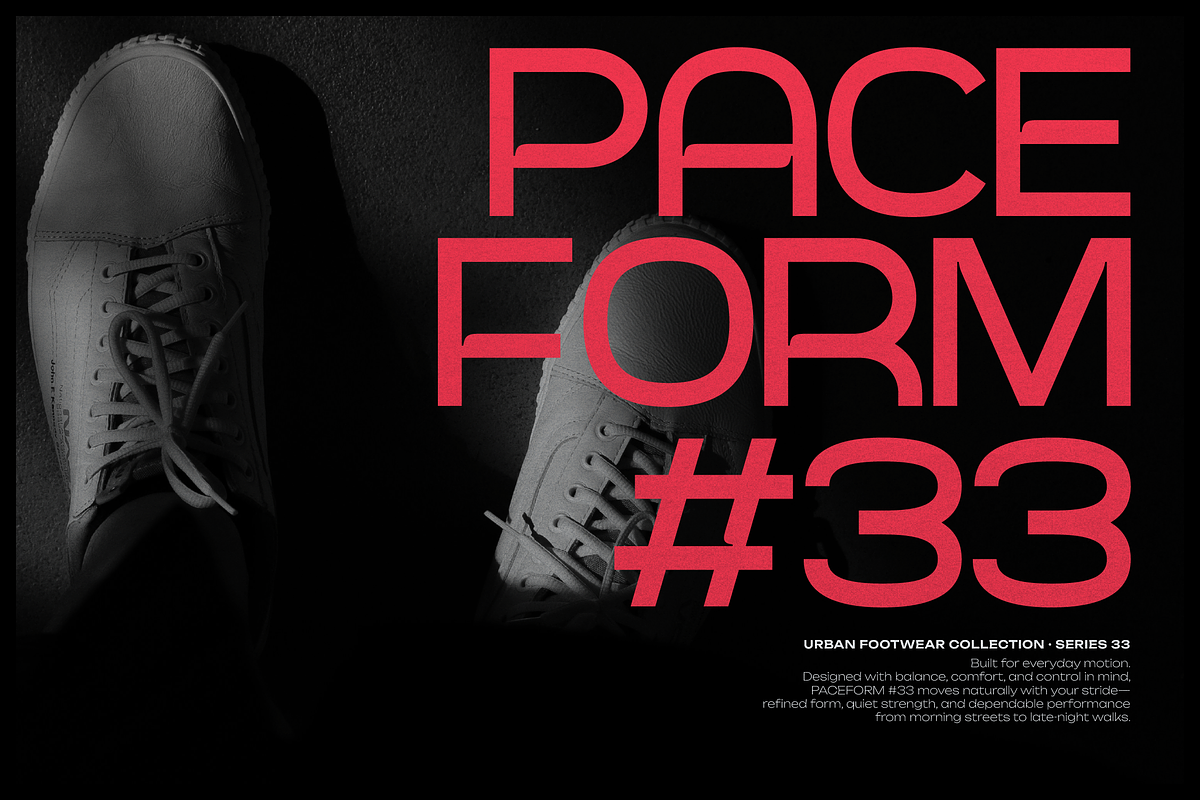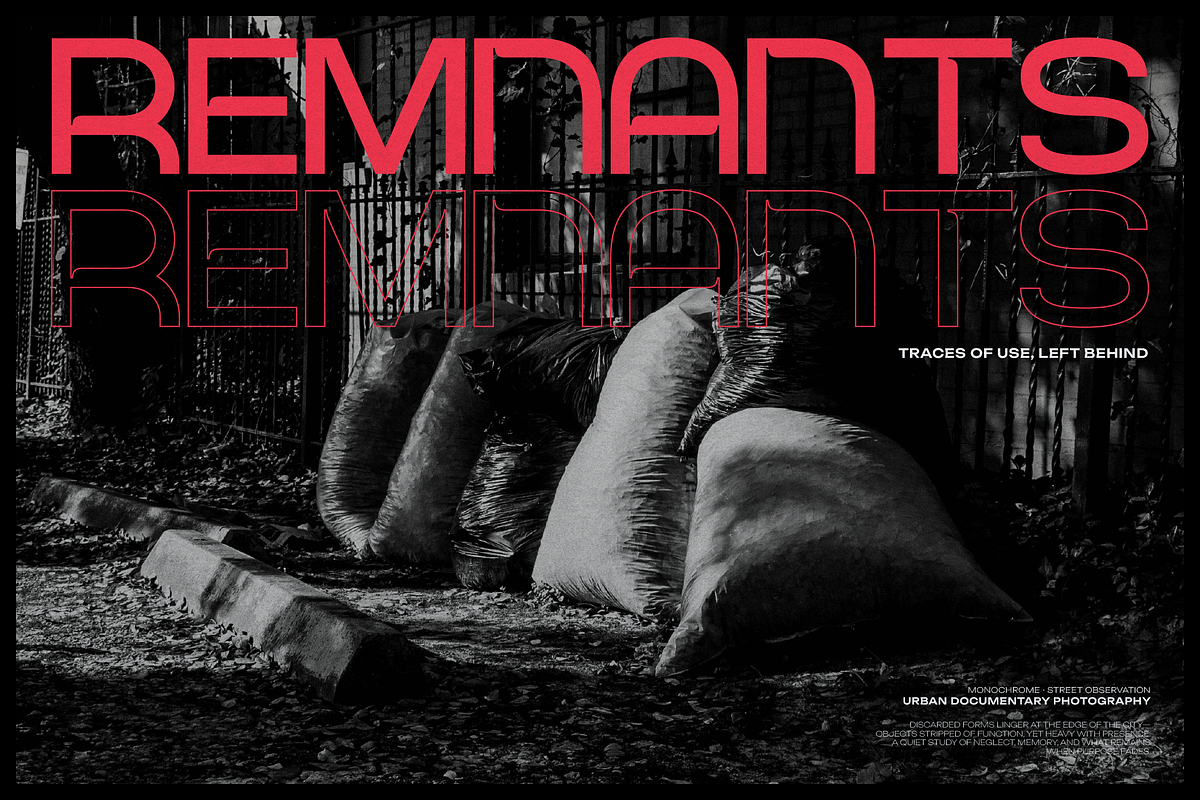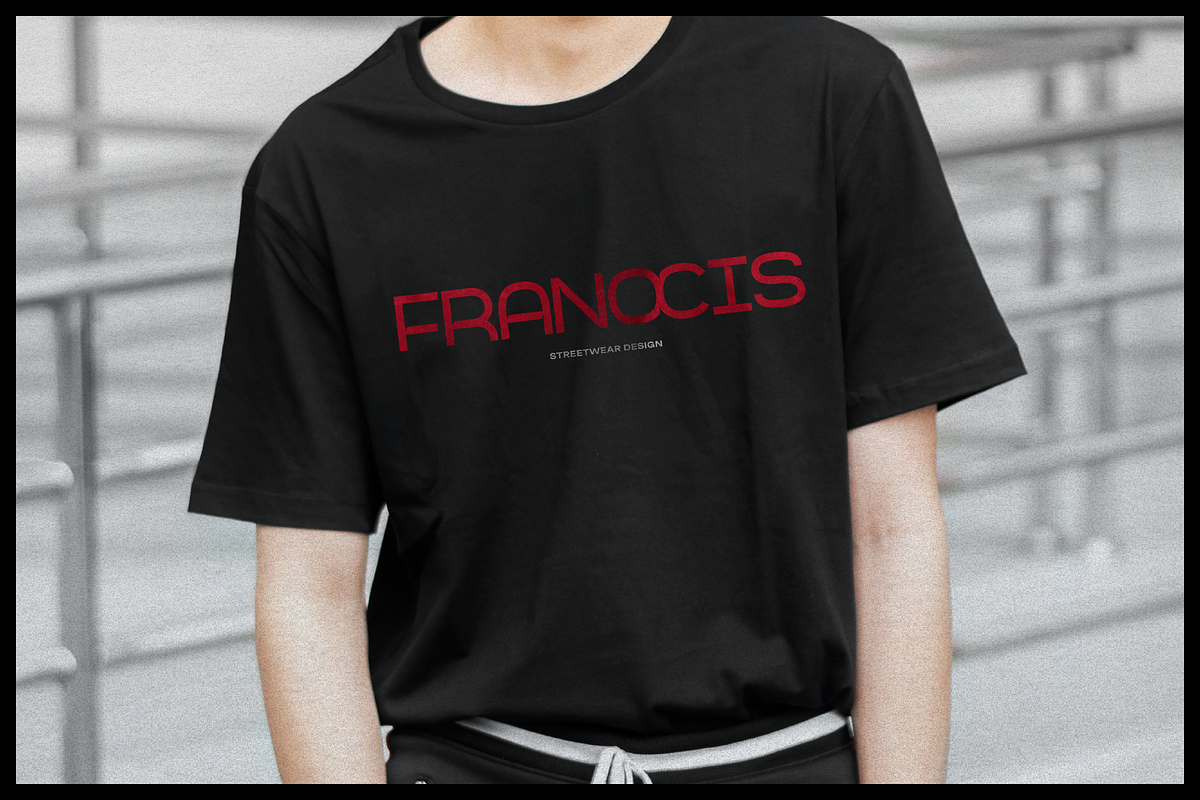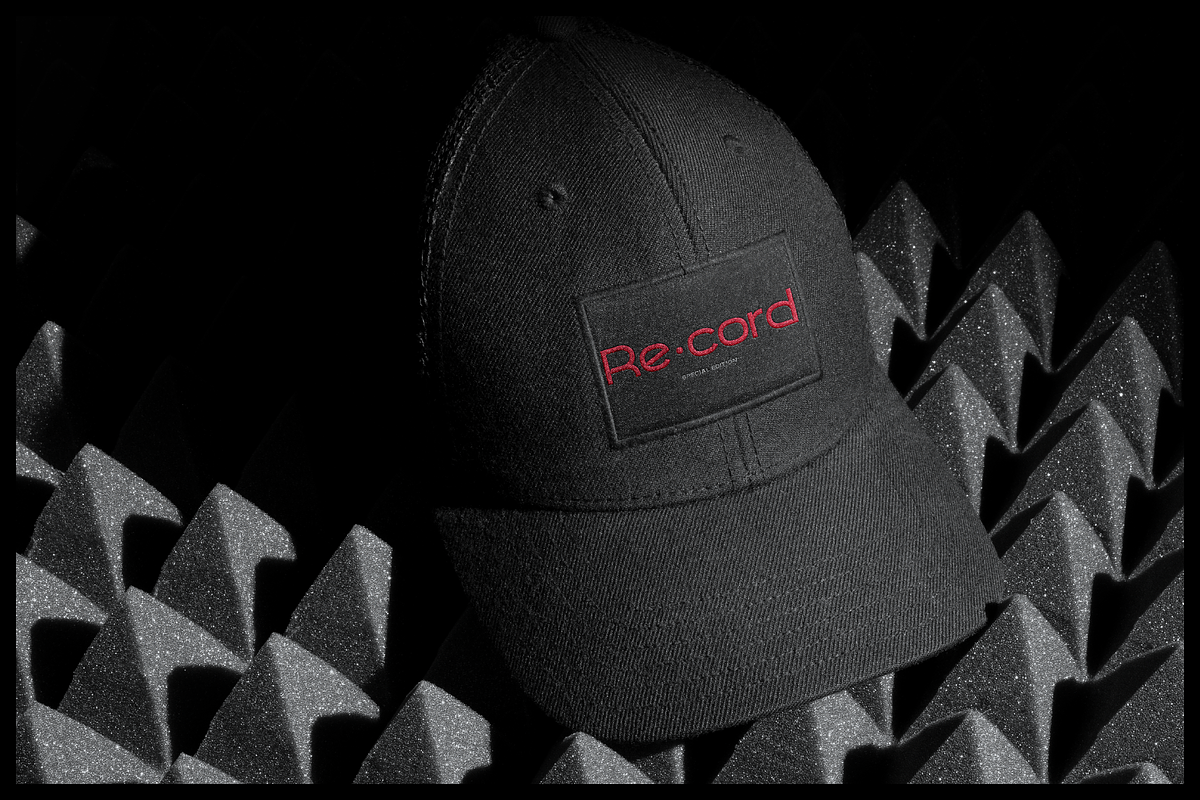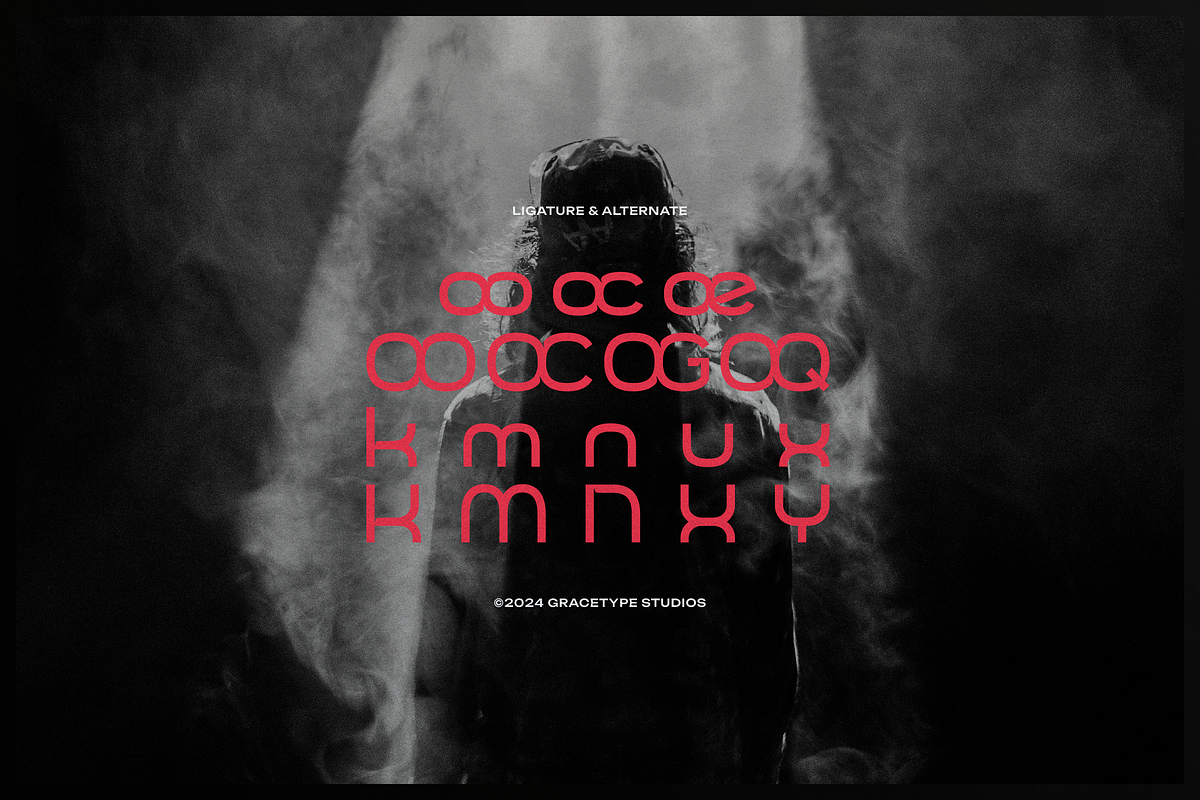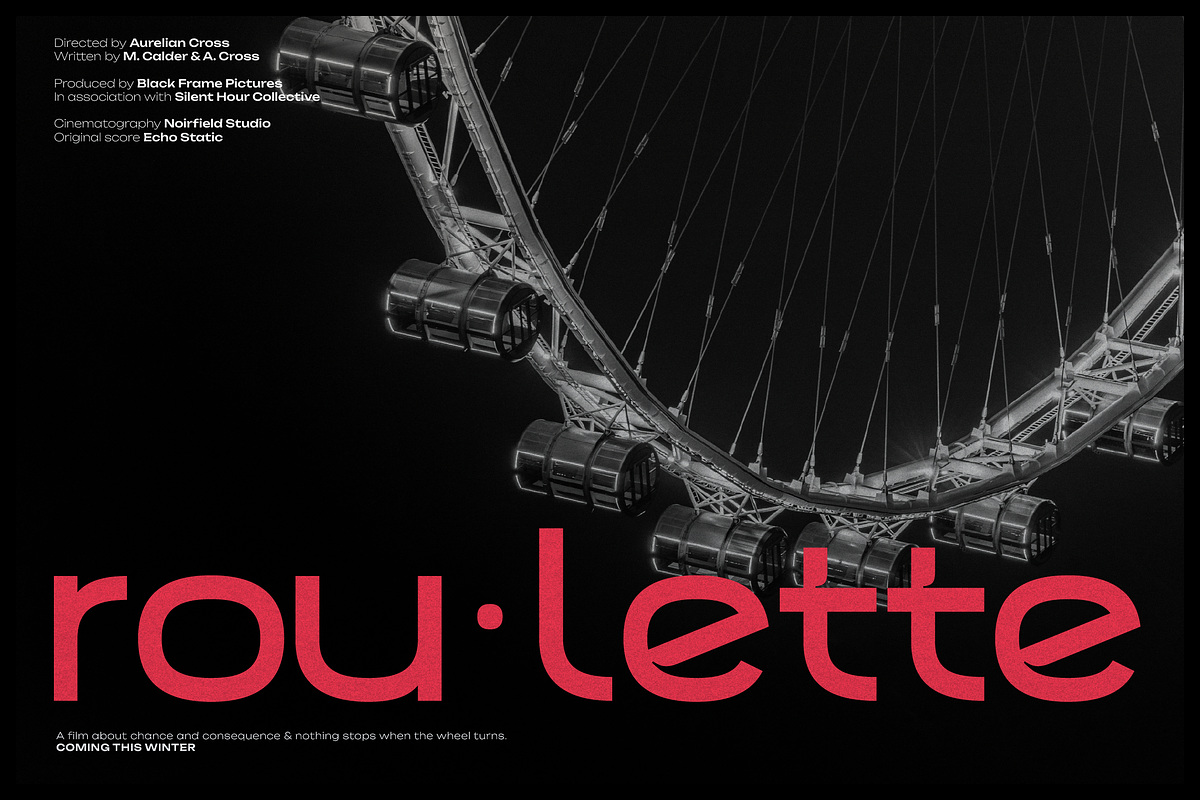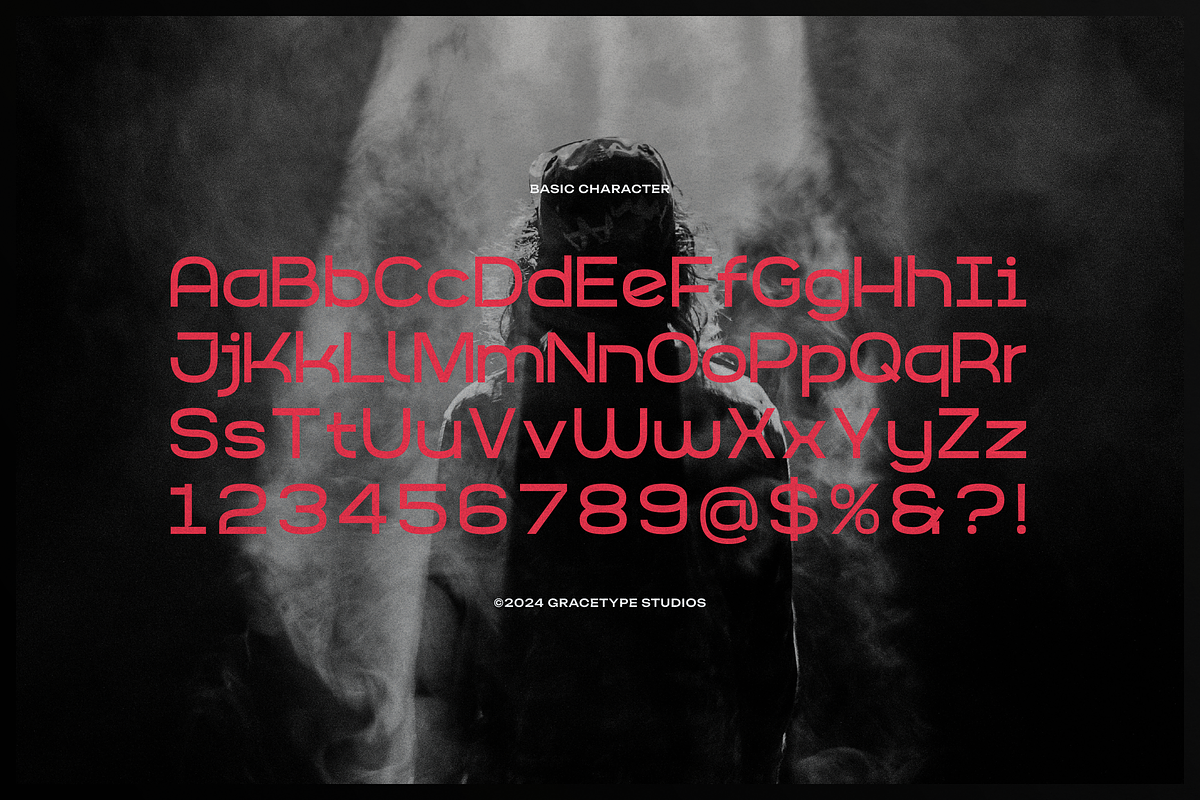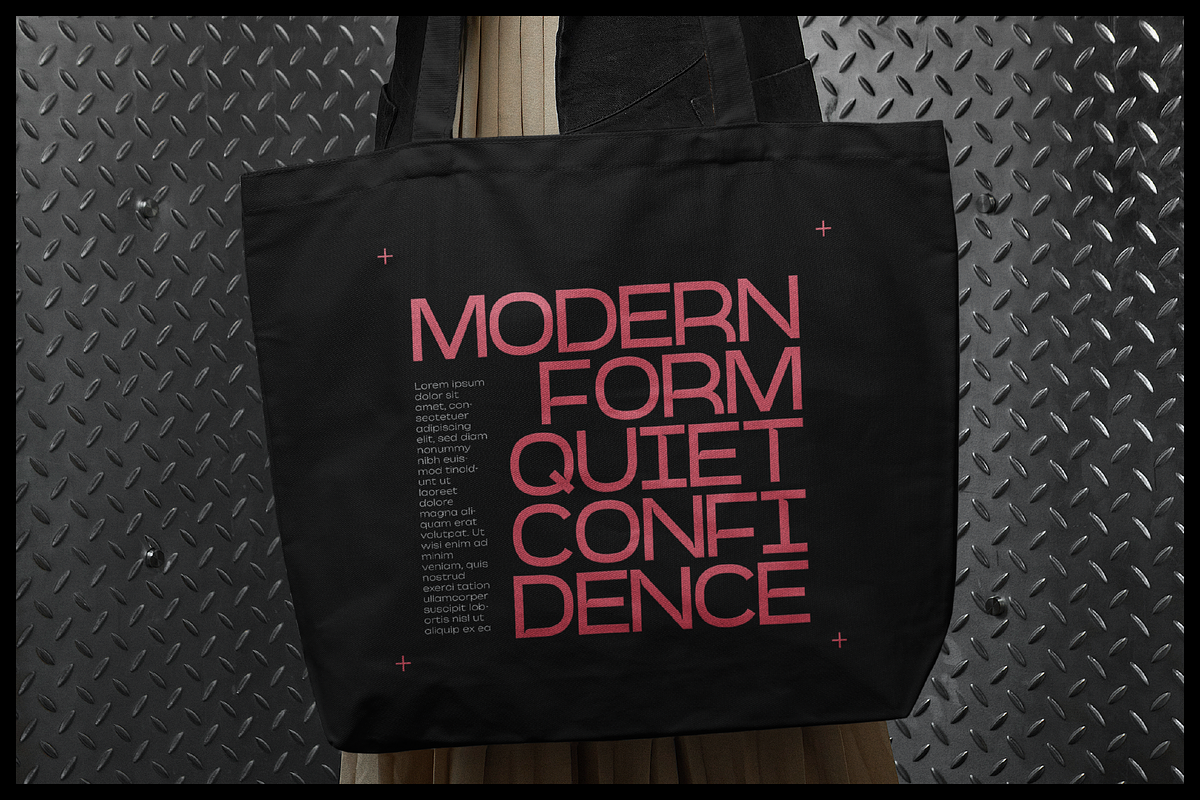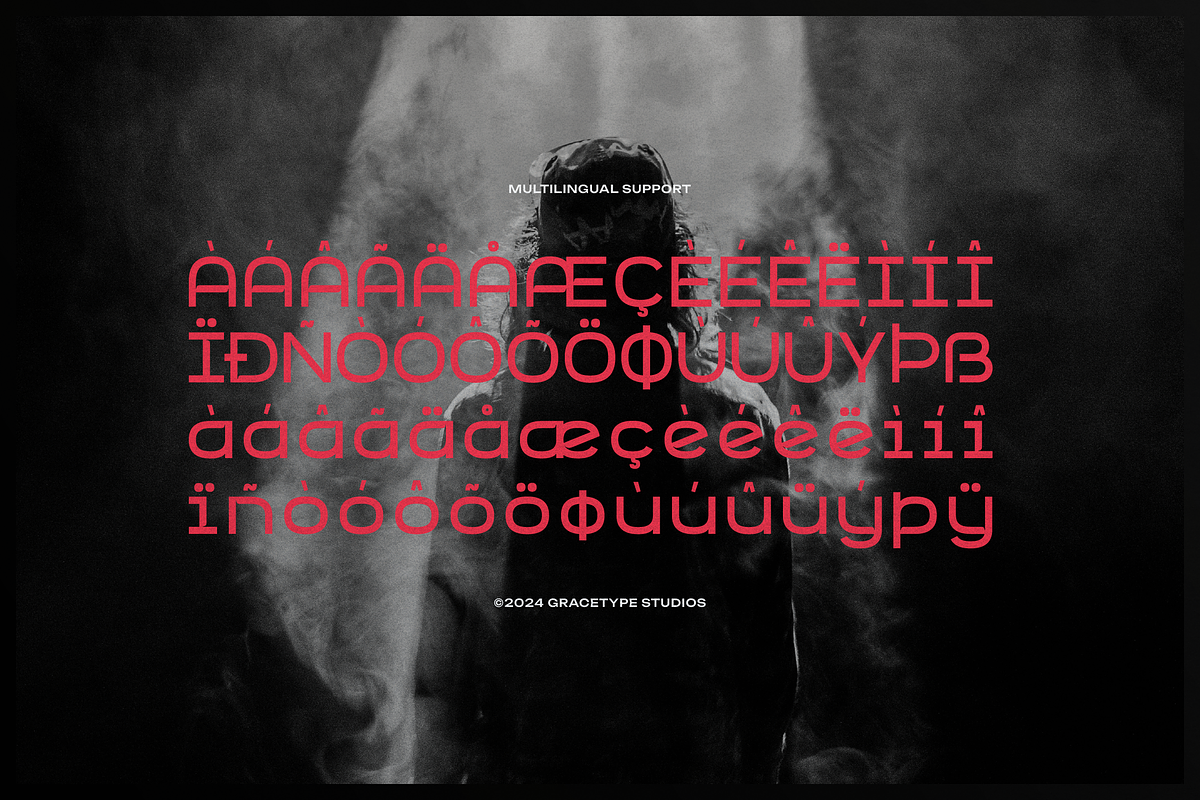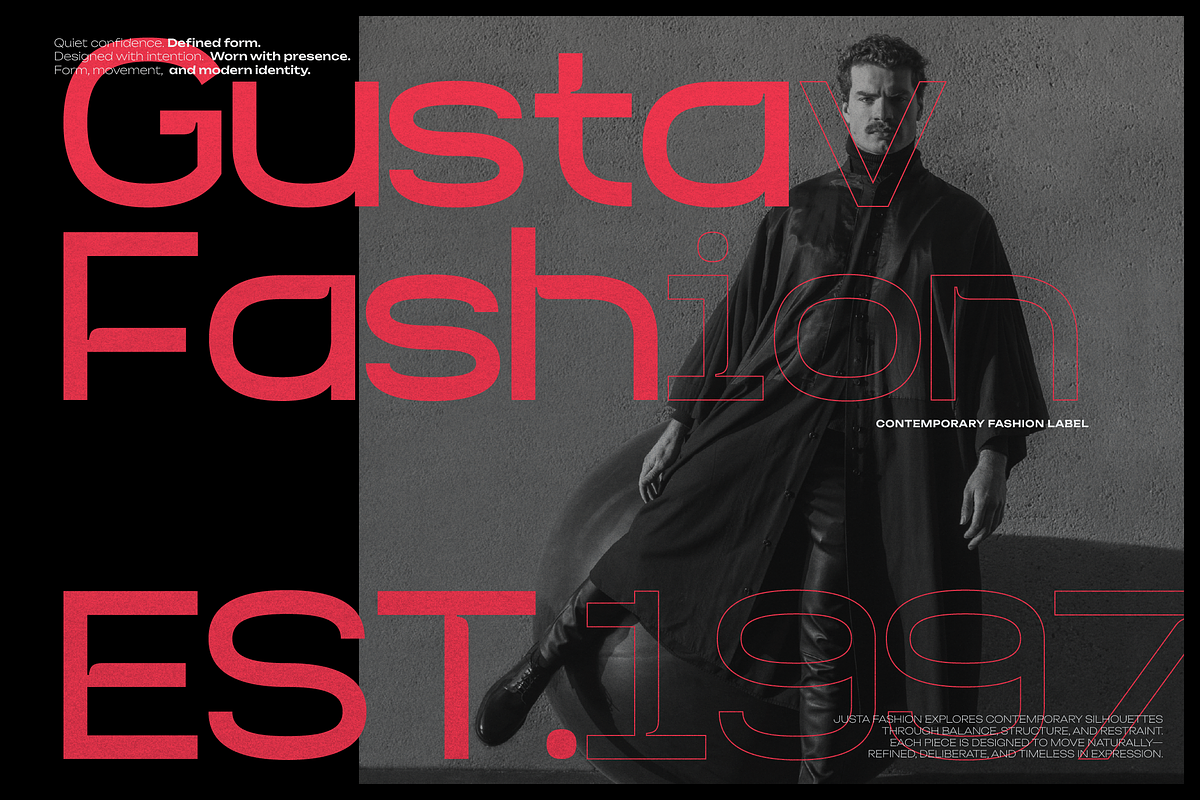
Renoire | Display Sans Serif
Renoire | Display Sans Serif, from Gracetypestudio, suitable for any projects such as: logos, branding projects, homeware designs, product packaging, mugs, quotes, posters, shopping bags, t-shirts, book covers, name card, invitation cards, greeting cards, label, photography, watermark, special events, and all your other lovely projects that need a Sans Serif taste.